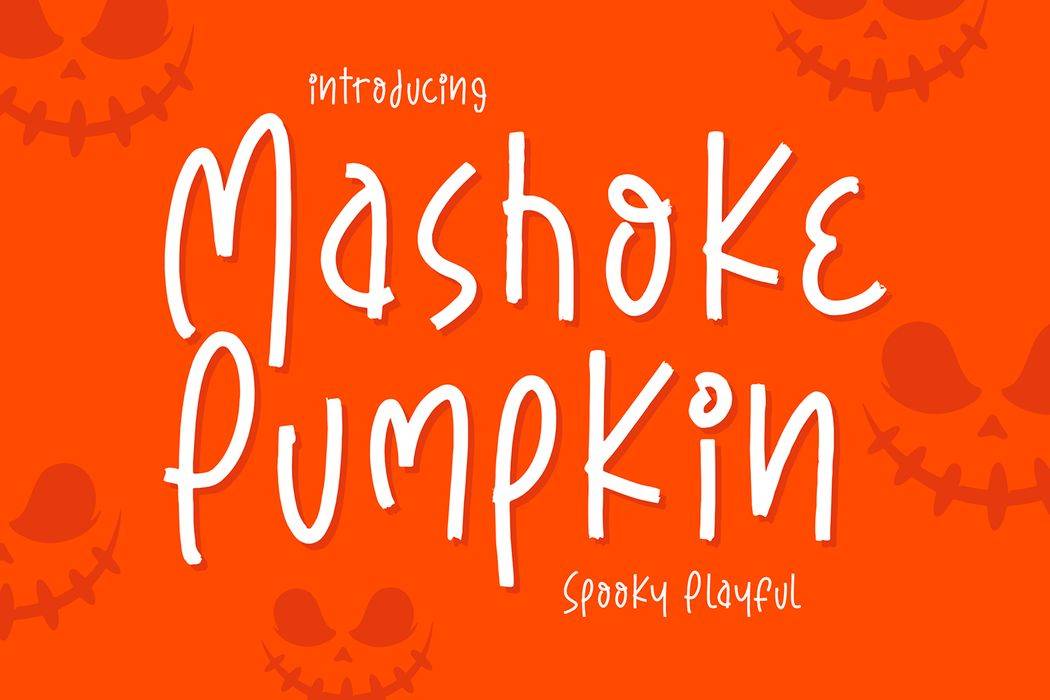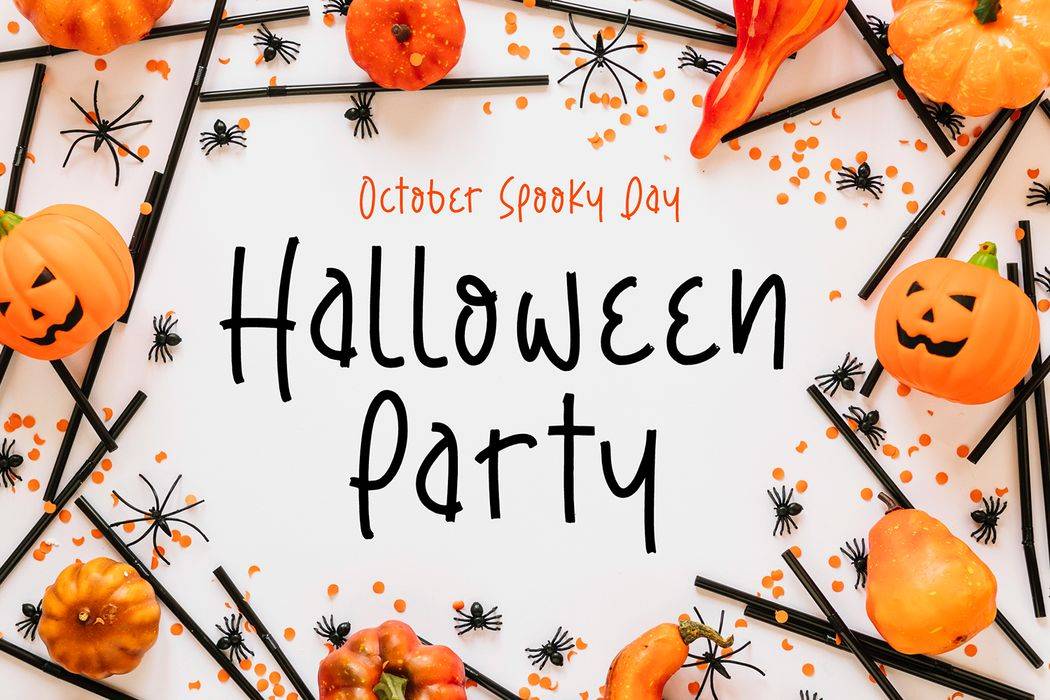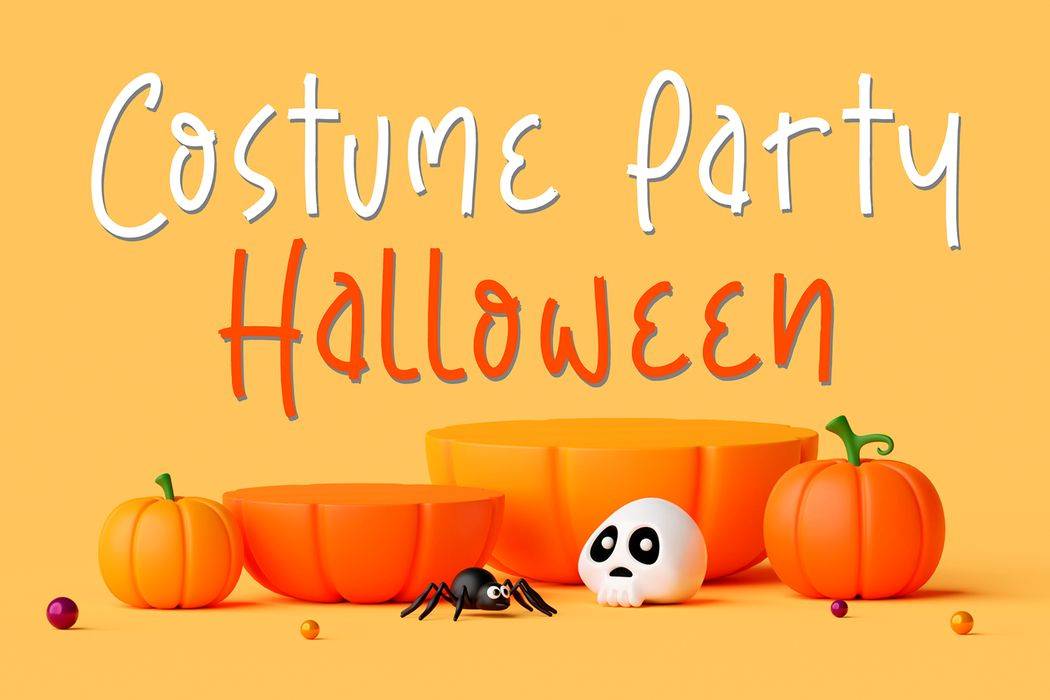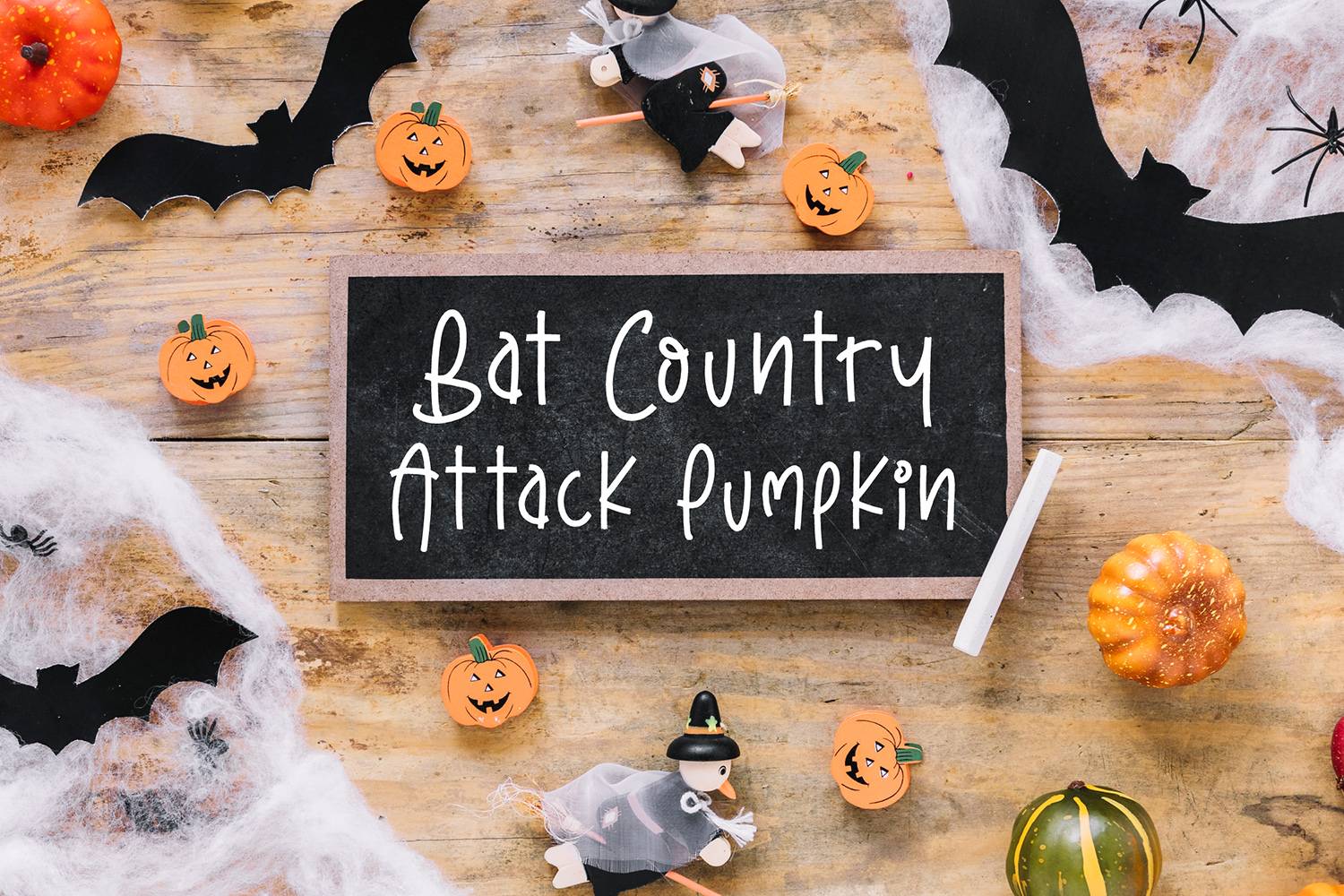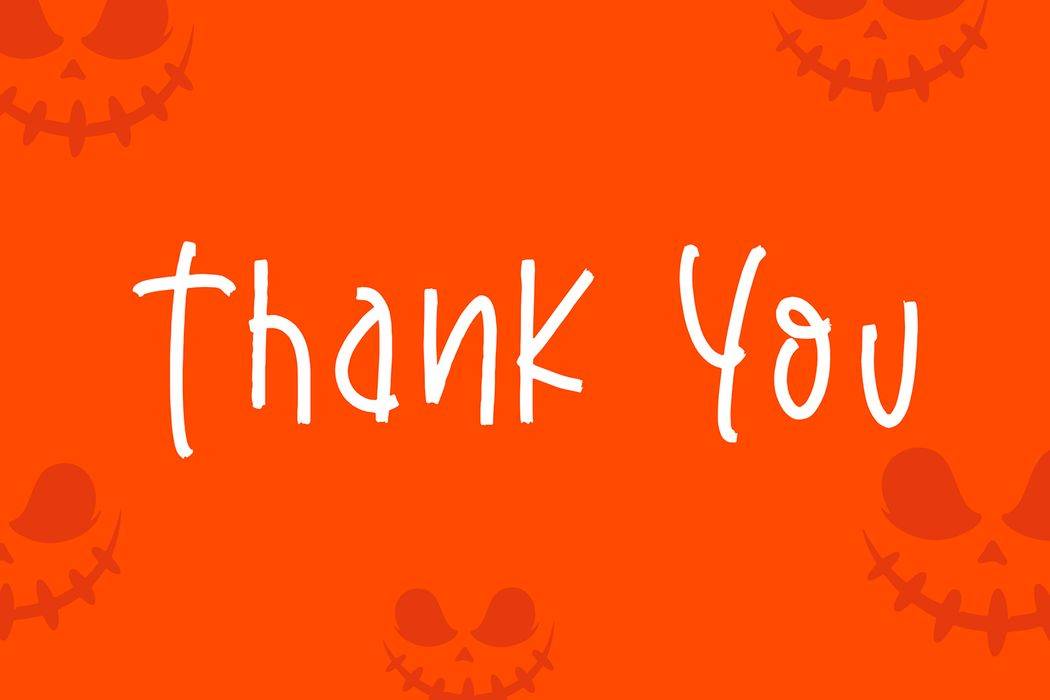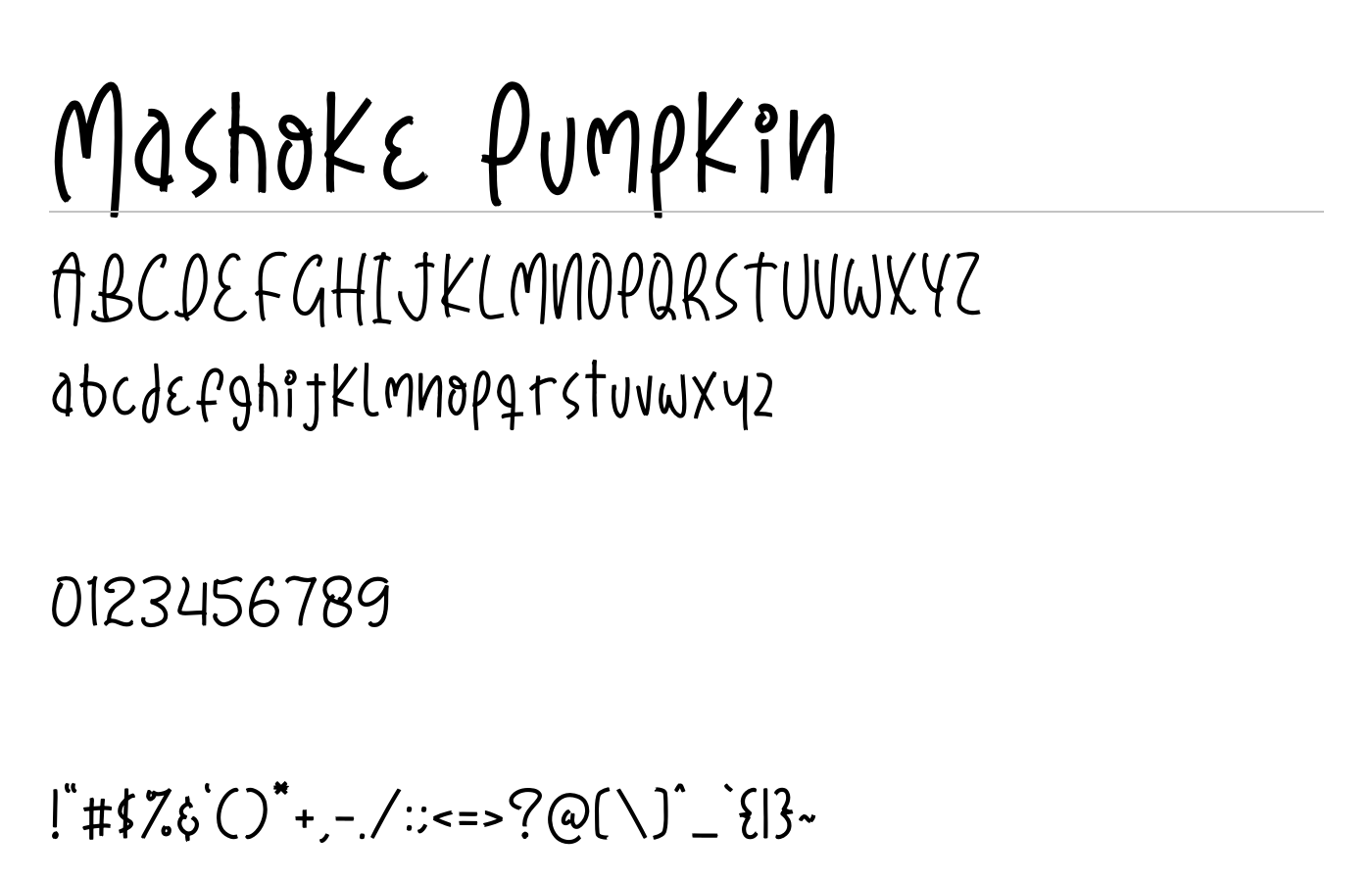
Mashoke Pumpkin is a playful, handwritten sans serif font with a light weight and narrow width that gives it a quirky, personal feel. Its tall x-height and rounded, uneven letterforms evoke a casual, friendly vibe, making it perfect for creative projects that want to appear approachable and fun. This font works well in children’s books, informal branding, invitations, and lighthearted headlines where personality and charm are key.
Mashoke Pumpkin Font
About Mashoke Pumpkin Font